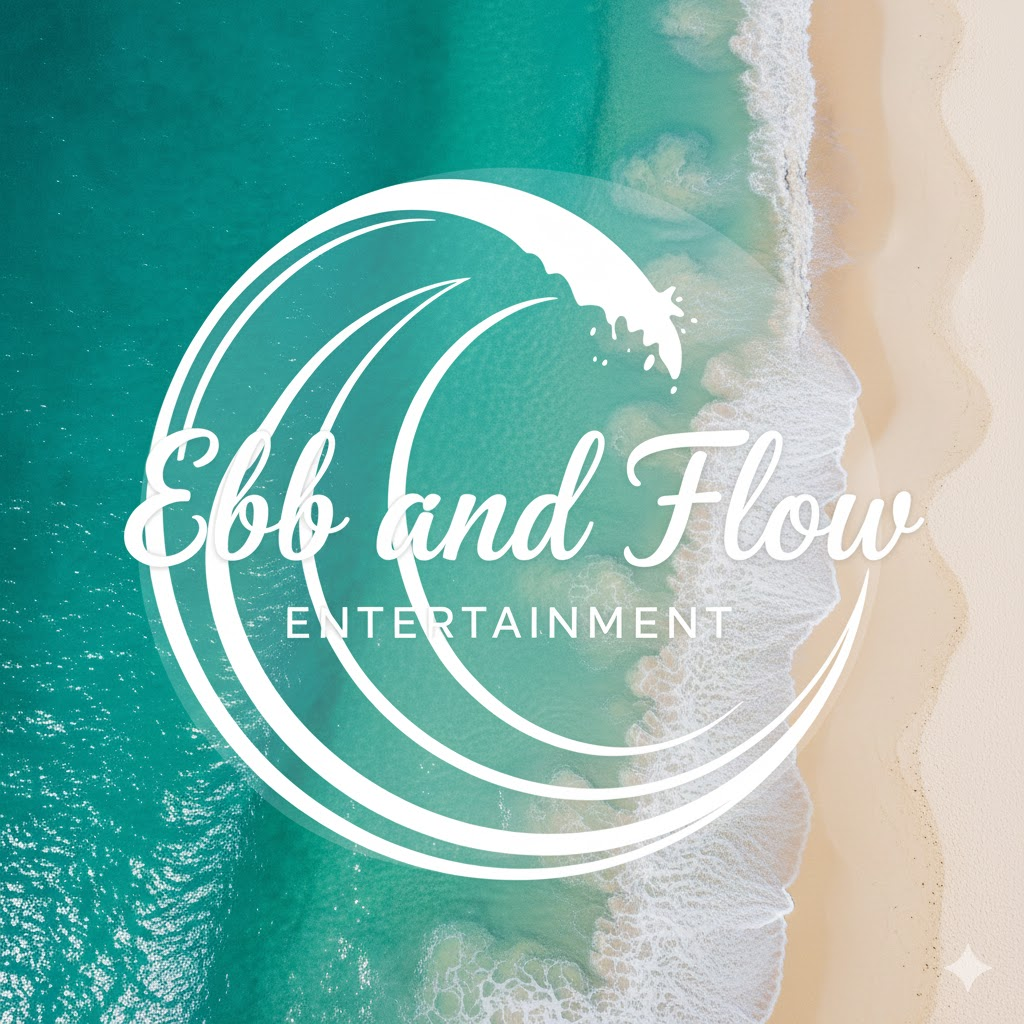
Identifying Font from 'Ebb and Flow'
Hi, I fell in love with the font which was generated by AI. Its very plausible that this font used does not exist, however I am hopeful that I can find something similar, I very like the bolding, the way how the top of the F ligature is separate from the F body, the structure of E and b, I appreciate how the font is not italic which is very common sylisation is most cursive fonts.
Can we find an alike font to this?